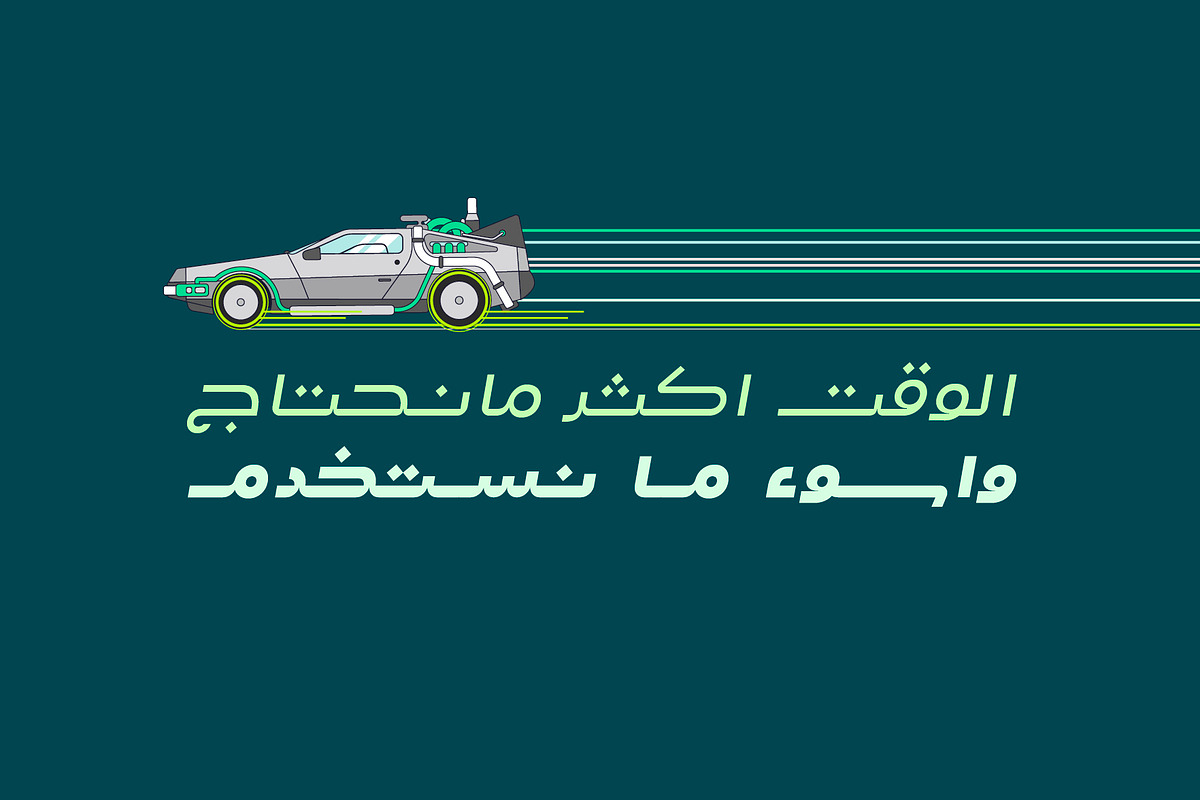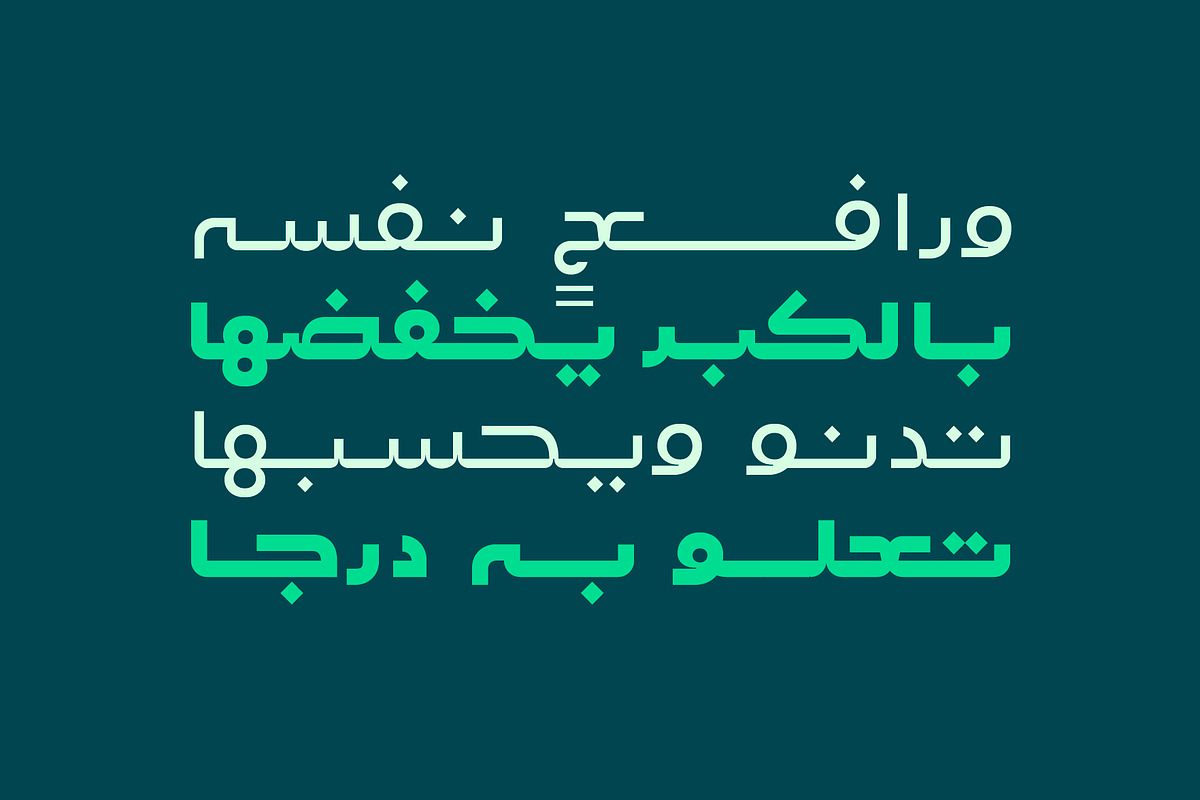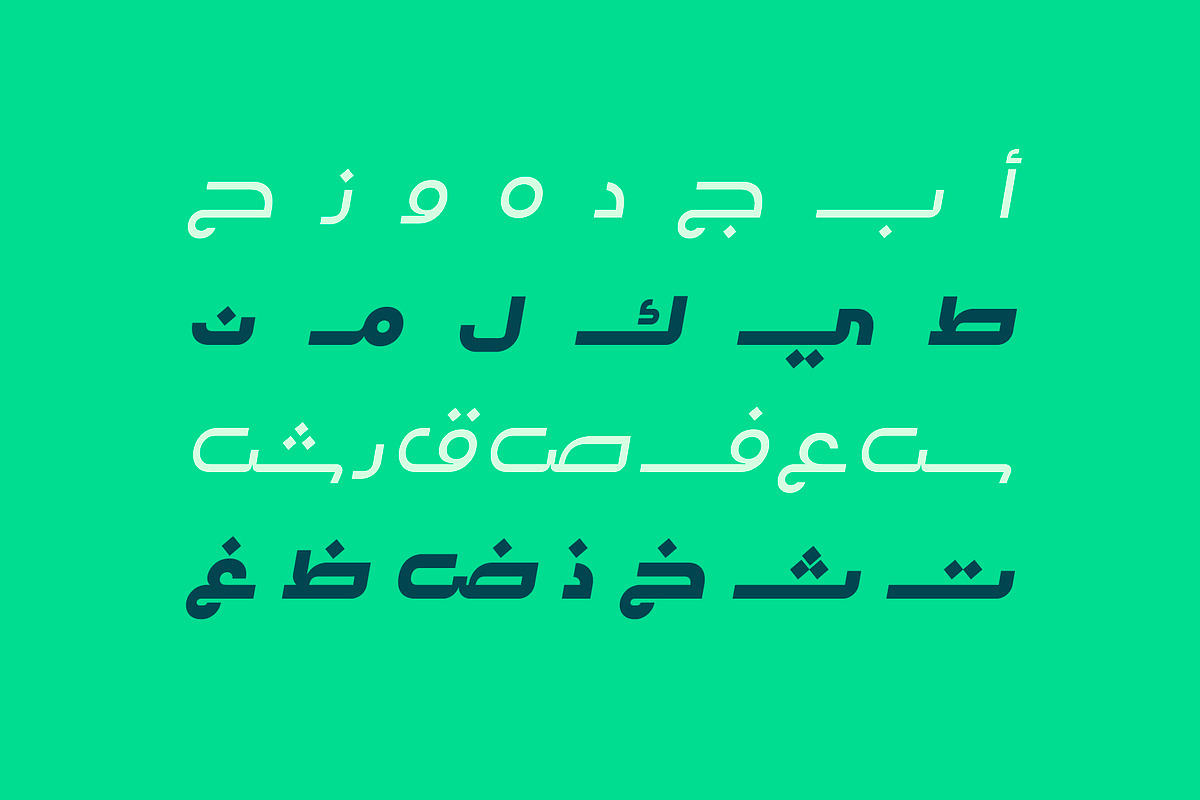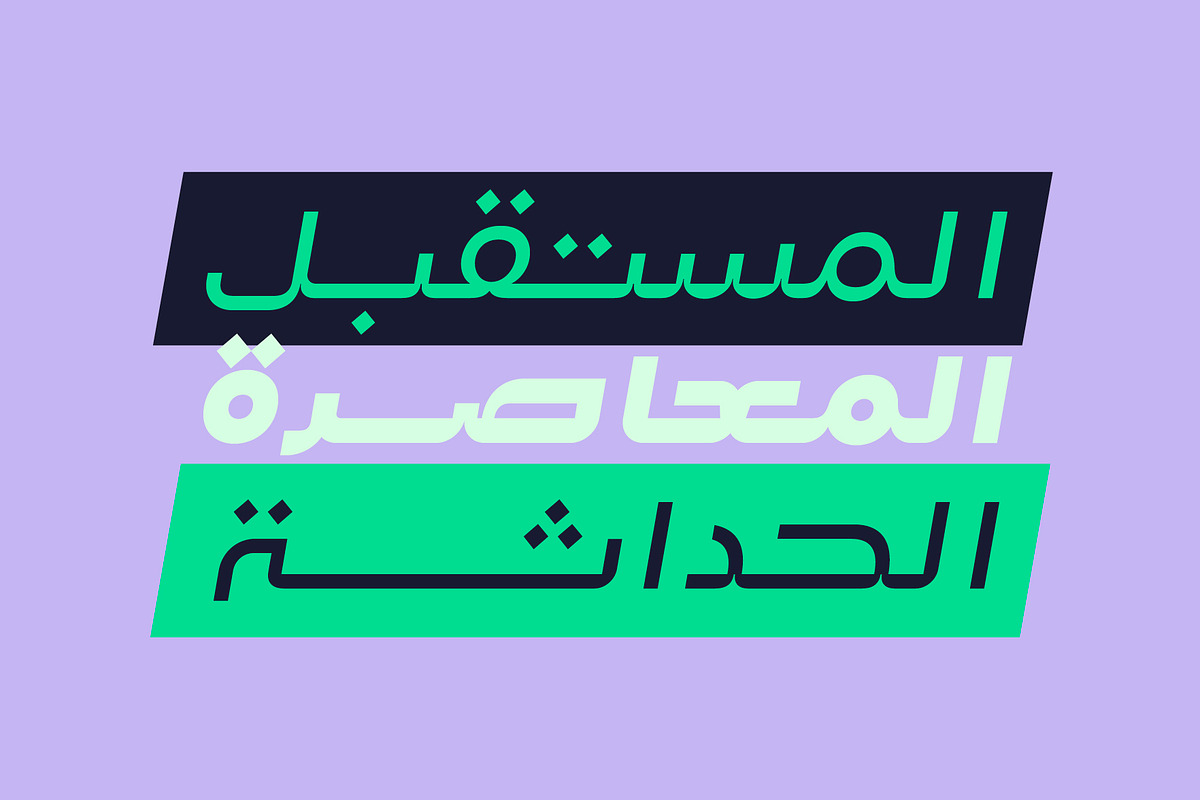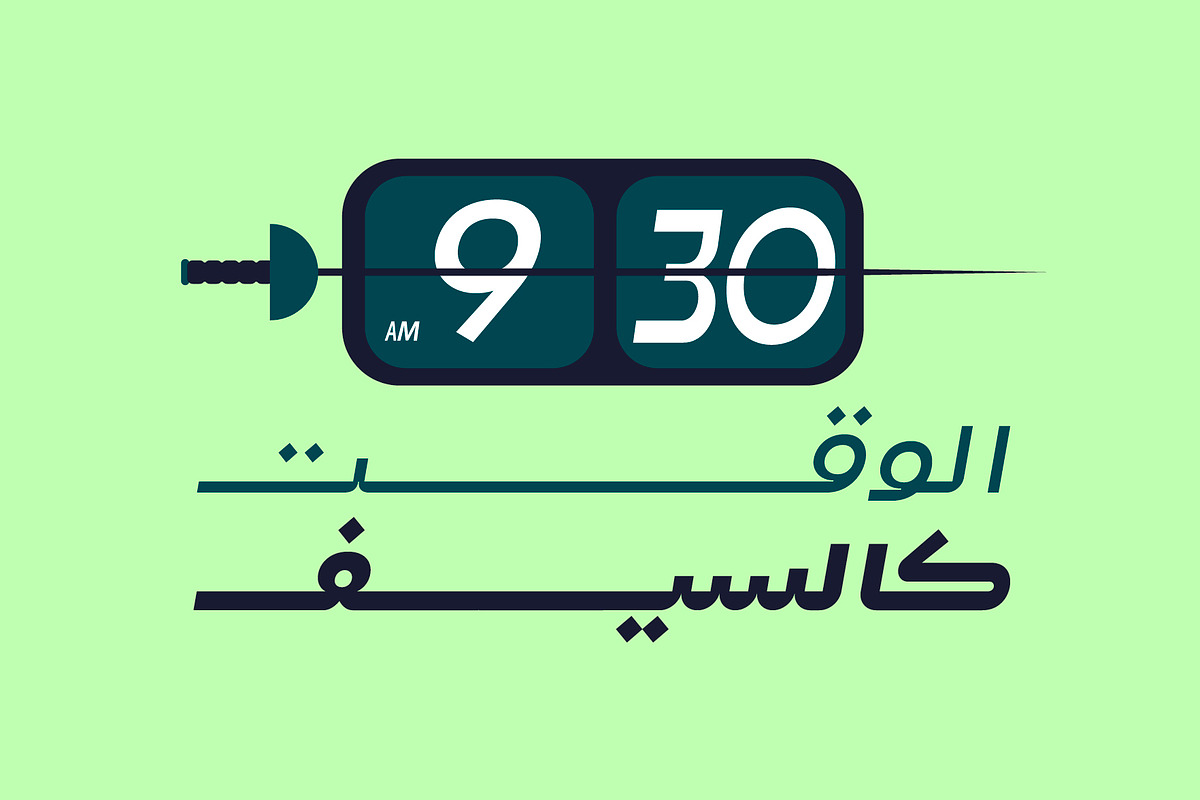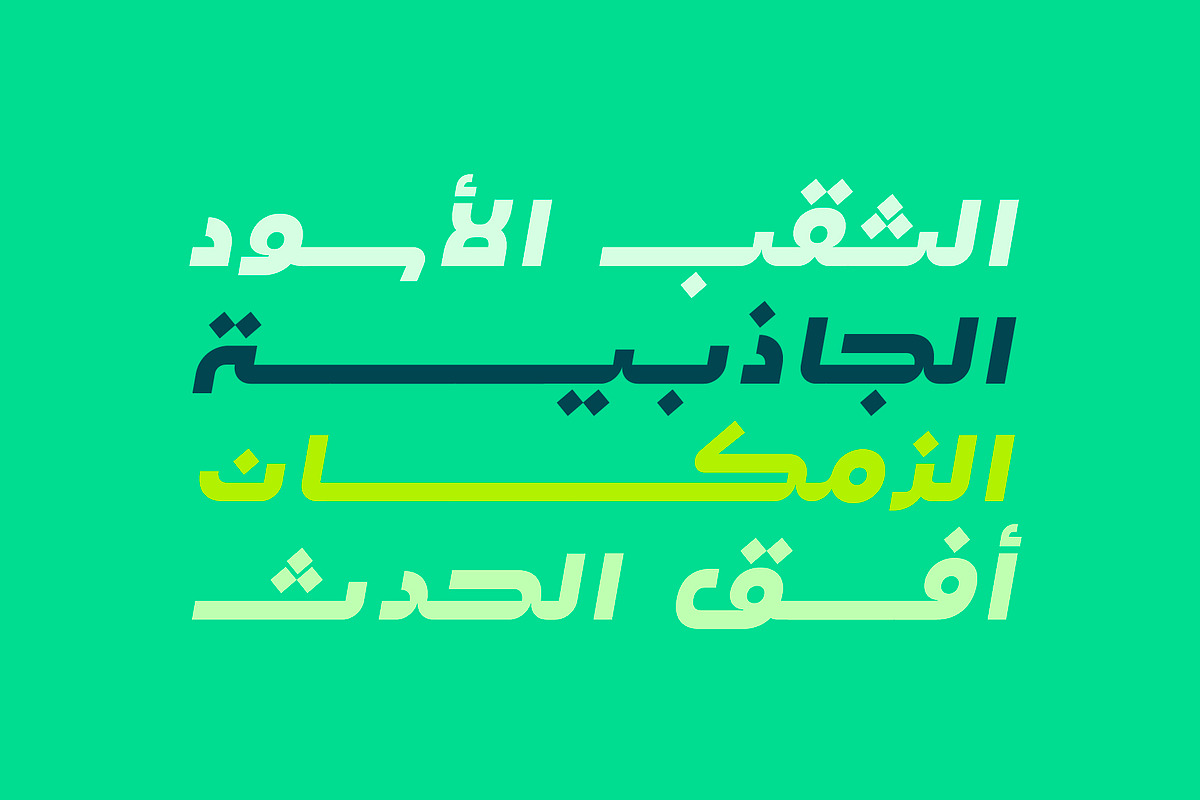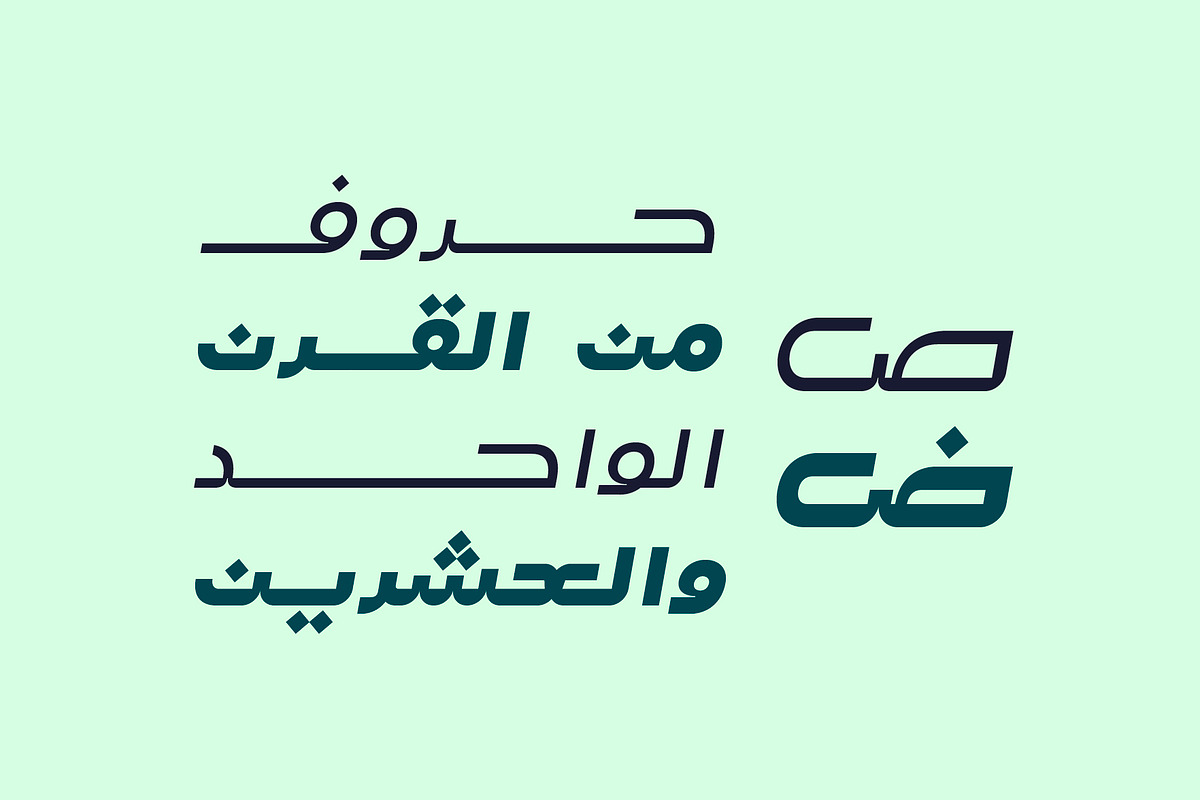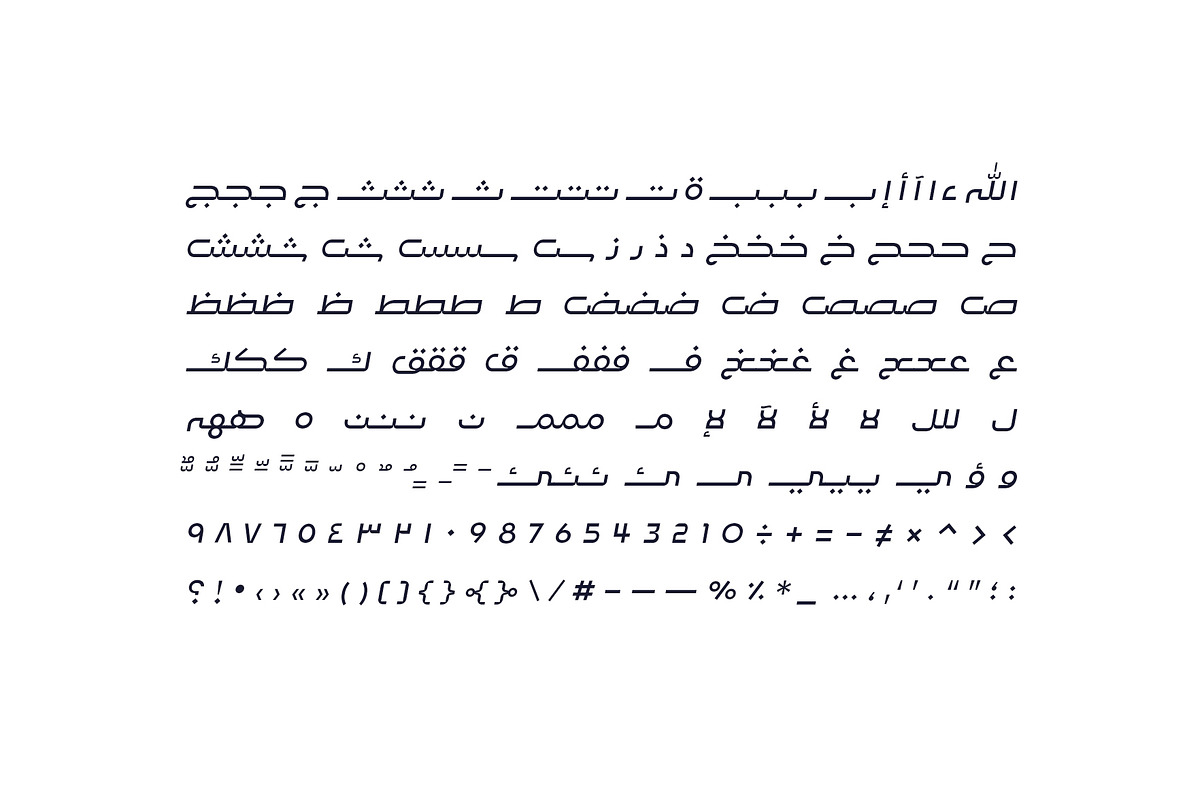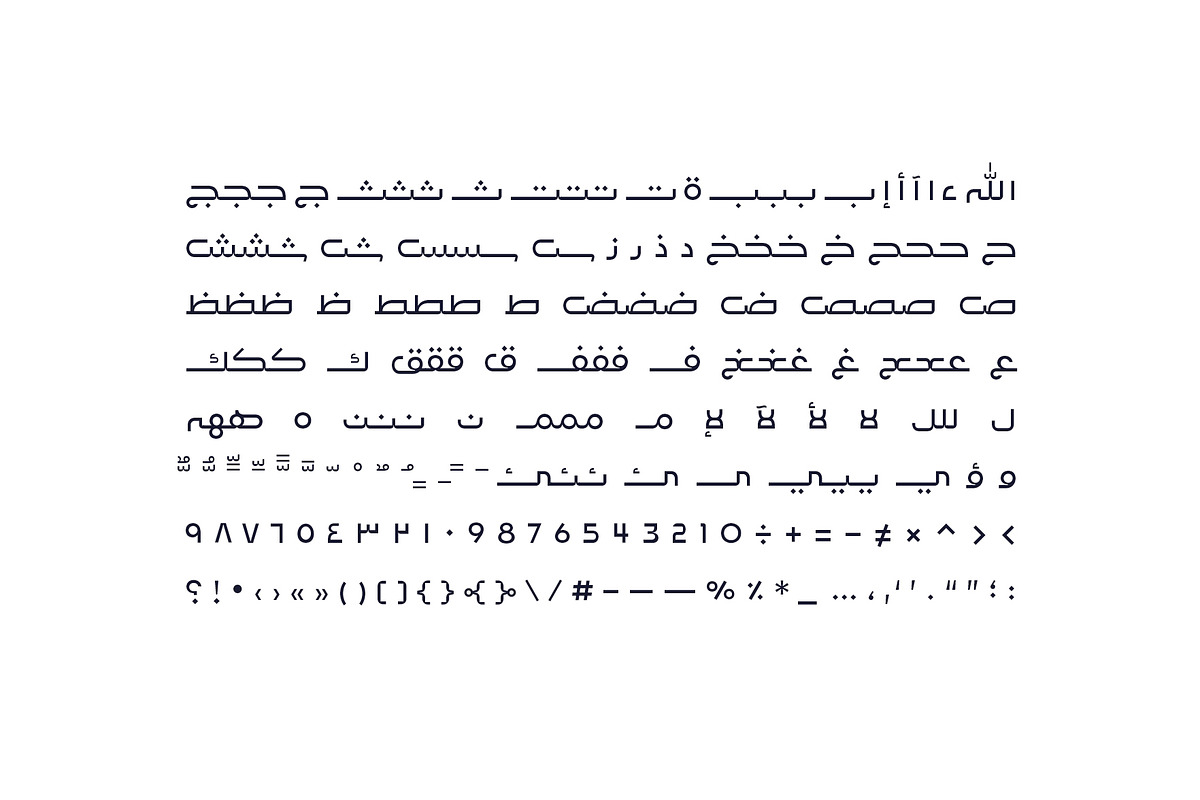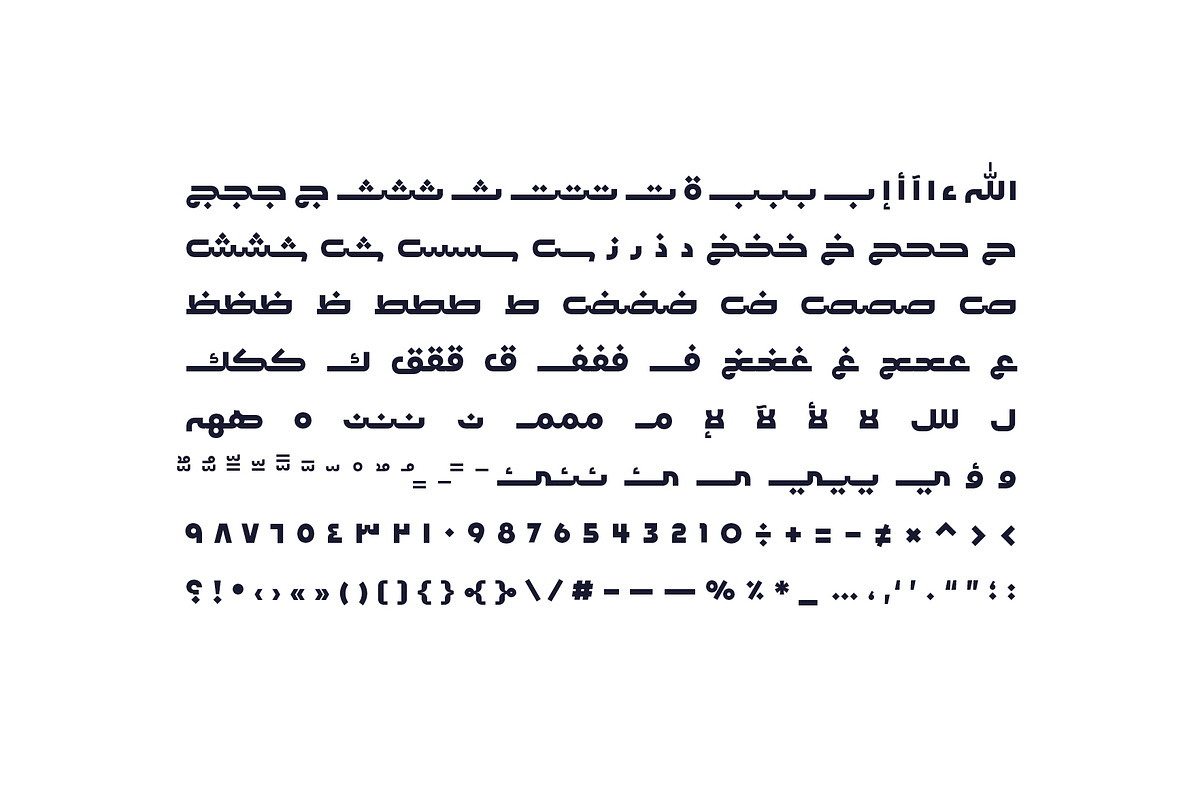
Lafet - Arabic Typeface
Lafet (which is the Arabic word for catchy) is an Arabic typeface that features a dynamic letterform design. Lafet's style reflects both modernity and simplicity. This typeface is suitable for design projects that may require energetic and powerful look. Lafet typeface consists of four styles (Regular, Bold, Regular Oblique and Bold Oblique).